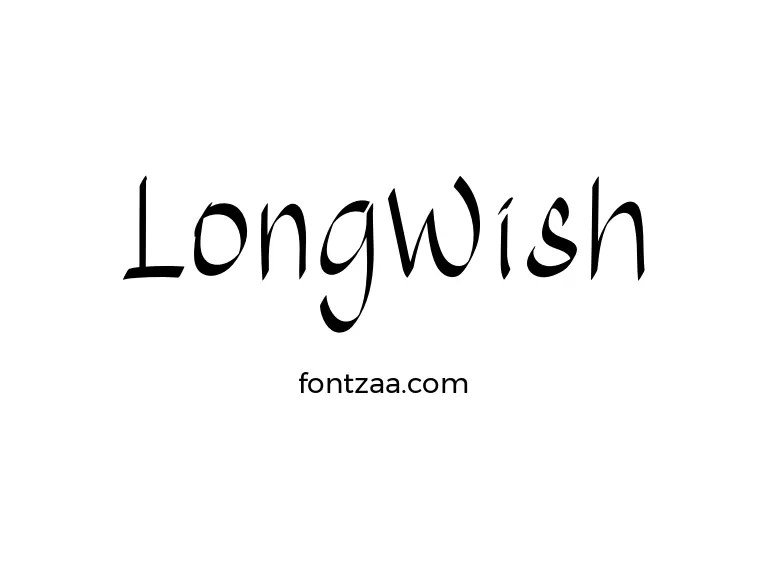
LongWish Font combines distinctive character shapes with a elegant appearance suited to display-focused design. The visual character of LongWish Font makes it an interesting choice for designers working on creative display work. Different color combinations can make the same font feel subtle, energetic, premium or highly decorative. Its letter shapes become especially noticeable at larger sizes, where spacing and proportions can be explored more clearly. Testing several arrangements before choosing the final version can reveal which characteristics of the typeface work best. Possible applications include invitations, wedding stationery, signatures, quotes and elegant branding. For layouts containing longer information, pairing it with a simpler supporting typeface can improve readability and hierarchy. Print and digital layouts may require different sizing and spacing, so testing the actual output dimensions is recommended. According to the available font information, the typeface is associated with RantauType. The listed license is Free for personal use, although users should still review the original font package before commercial use. Testing the font with the actual project text can provide a much better impression than viewing isolated sample characters.
LongWish Font brings a elegant personality to typography and gives designers a flexible starting point for headlines, branding and promotional layouts. The font can work as the primary visual element in a minimal layout or as part of a more detailed composition. The typeface can change considerably depending on tracking, scale, alignment, background and surrounding imagery. Using generous space around the lettering can help the details of the typeface remain visible instead of competing with other elements. The font can be considered for projects such as invitations, wedding stationery, signatures, quotes and elegant branding. Previewing the final layout on both large and small screens helps identify spacing and readability problems early. Keeping secondary typography simple often allows the distinctive qualities of the main font to remain more visible. According to the available font information, the typeface is associated with RantauType. The available licensing label is Free for personal use, but redistribution and commercial permissions should always be confirmed from the original source. Experimenting directly in the intended design is usually the best way to judge whether the typeface suits the project.
Designers exploring a elegant typeface can use LongWish Font to add a more recognizable visual voice to digital and print projects. The font can work as the primary visual element in a minimal layout or as part of a more detailed composition. Testing several arrangements before choosing the final version can reveal which characteristics of the typeface work best. Using generous space around the lettering can help the details of the typeface remain visible instead of competing with other elements. The font can be considered for projects such as invitations, wedding stationery, signatures, quotes and elegant branding. Designers should evaluate the typeface inside the real project because a standalone preview cannot show every possible visual combination. Keeping secondary typography simple often allows the distinctive qualities of the main font to remain more visible. The available source information lists RantauType as the designer or publisher. The available licensing label is Free for personal use, but redistribution and commercial permissions should always be confirmed from the original source. The most effective treatment will vary by project, so designers should compare several versions before finalizing the artwork.
LongWish Font Family
The LongWish Font Family gives designers a flexible display option that can be adapted through changes in size, spacing, alignment and color. With its distinctive letterforms, LongWish Font can introduce a elegant character into font-family exploration. Its letter shapes become especially noticeable at larger sizes, where spacing and proportions can be explored more clearly. Using generous space around the lettering can help the details of the typeface remain visible instead of competing with other elements. Testing several arrangements before choosing the final version can reveal which characteristics of the typeface work best. Designers may explore it across invitations, wedding stationery, signatures, quotes and elegant branding, depending on the tone and requirements of the project. Print and digital layouts may require different sizing and spacing, so testing the actual output dimensions is recommended. Previewing the final layout on both large and small screens helps identify spacing and readability problems early. The available source information lists RantauType as the designer or publisher. Current license information is shown as Free for personal use; checking the original documentation is recommended before client or commercial work. Testing the font with the actual project text can provide a much better impression than viewing isolated sample characters.
| Designer | RantauType |
Creative Uses for LongWish Font
LongWish Font stands out through its individual shapes and can become an important visual element in practical ways designers can use the typeface. Different color combinations can make the same font feel subtle, energetic, premium or highly decorative. The font can work as the primary visual element in a minimal layout or as part of a more detailed composition. The typeface can change considerably depending on tracking, scale, alignment, background and surrounding imagery. The font can be considered for projects such as invitations, wedding stationery, signatures, quotes and elegant branding. Previewing the final layout on both large and small screens helps identify spacing and readability problems early. Print and digital layouts may require different sizing and spacing, so testing the actual output dimensions is recommended. The designer or publisher information available for this typeface is RantauType. Current license information is shown as Free for personal use; checking the original documentation is recommended before client or commercial work. Experimenting directly in the intended design is usually the best way to judge whether the typeface suits the project.
Tips for Better Results With LongWish Font
With its distinctive letterforms, LongWish Font can introduce a elegant character into spacing, contrast, scale and layout decisions. Using generous space around the lettering can help the details of the typeface remain visible instead of competing with other elements. Its letter shapes become especially noticeable at larger sizes, where spacing and proportions can be explored more clearly. The typeface can change considerably depending on tracking, scale, alignment, background and surrounding imagery. Designers may explore it across invitations, wedding stationery, signatures, quotes and elegant branding, depending on the tone and requirements of the project. A clean serif or sans serif companion can handle smaller text while this font remains focused on headlines and key messages. For layouts containing longer information, pairing it with a simpler supporting typeface can improve readability and hierarchy. The designer or publisher information available for this typeface is RantauType. The listed license is Free for personal use, although users should still review the original font package before commercial use. A few quick layout variations can help determine where the font creates the strongest visual result.
Design Ideas for LongWish Font
LongWish Font brings a elegant personality to typography and gives designers a flexible starting point for different creative applications for the font. Its letter shapes become especially noticeable at larger sizes, where spacing and proportions can be explored more clearly. Different color combinations can make the same font feel subtle, energetic, premium or highly decorative. Testing several arrangements before choosing the final version can reveal which characteristics of the typeface work best. Designers may explore it across invitations, wedding stationery, signatures, quotes and elegant branding, depending on the tone and requirements of the project. Previewing the final layout on both large and small screens helps identify spacing and readability problems early. For layouts containing longer information, pairing it with a simpler supporting typeface can improve readability and hierarchy. Source metadata currently associates the font with RantauType. Current license information is shown as Free for personal use; checking the original documentation is recommended before client or commercial work. Experimenting directly in the intended design is usually the best way to judge whether the typeface suits the project.